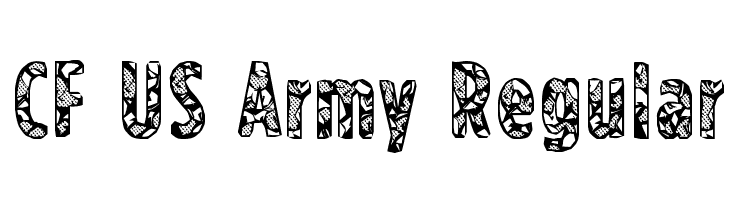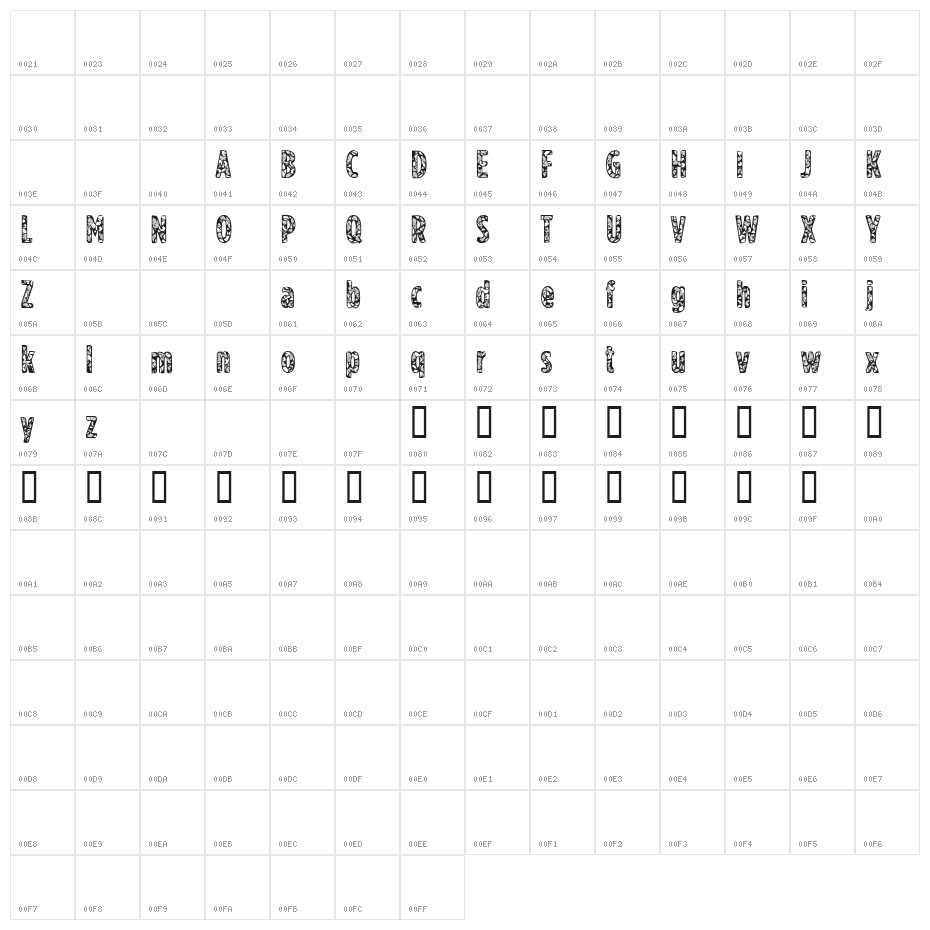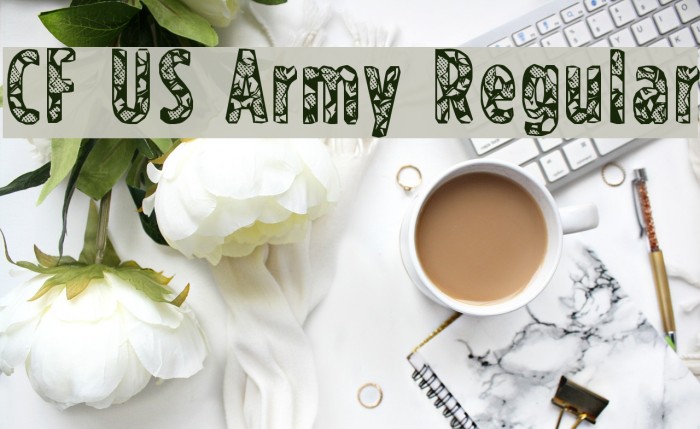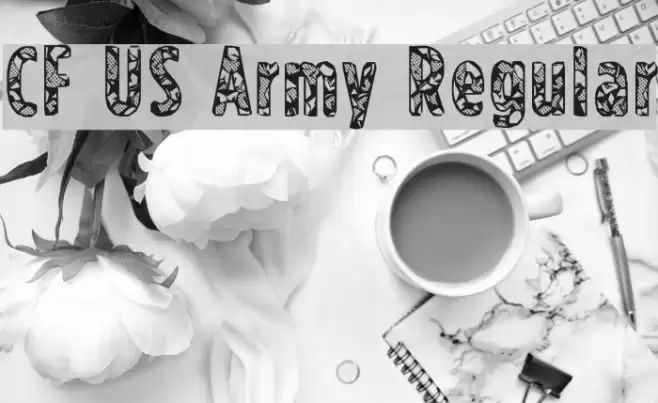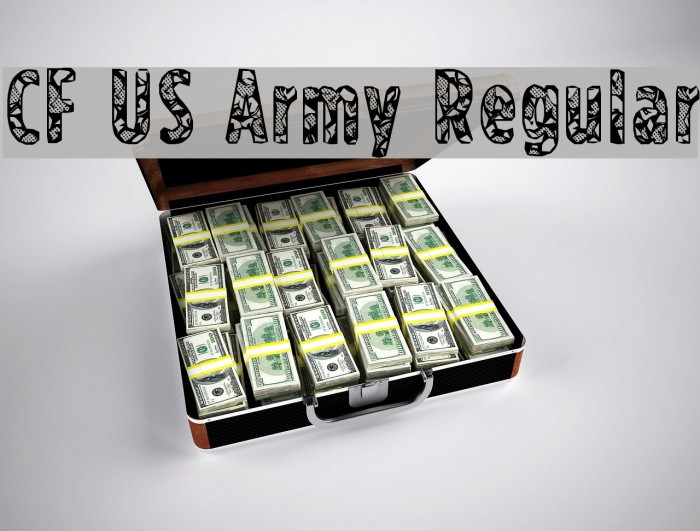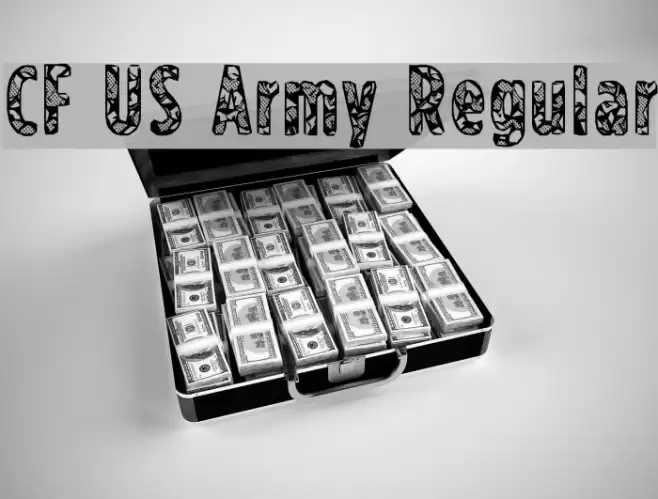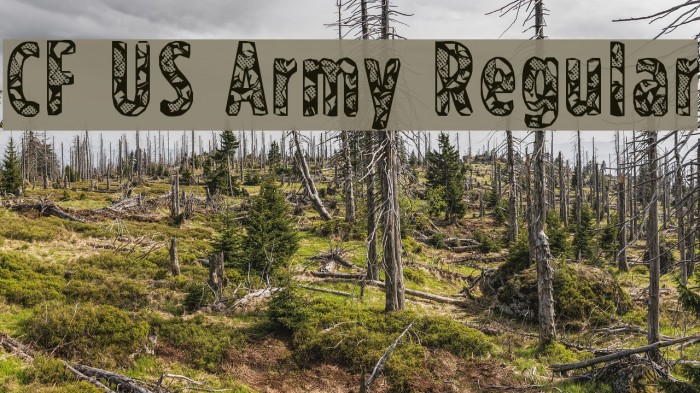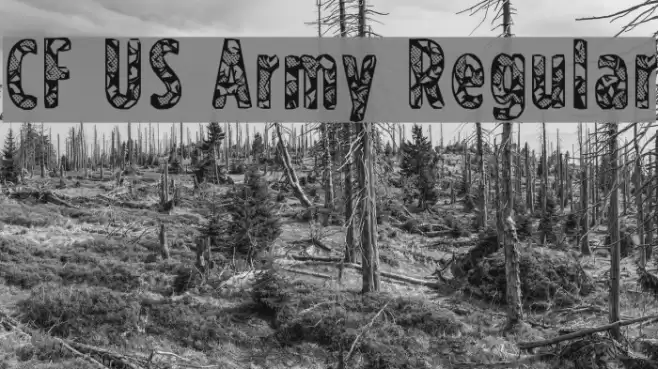
CF US Army Regular Font
CF US Army Regular Description
This font features a bold and decorative style with a unique camouflage pattern filling each character. The uppercase and lowercase letters maintain a consistent design, showcasing a rugged and military-inspired aesthetic. The characters are well-defined with a strong presence, making them ideal for attention-grabbing designs. The pattern within the letters adds a textured look, enhancing the overall visual impact. This font is perfect for projects that require a distinctive and bold statement, such as military-themed graphics or adventurous branding.
| Proposed Projects | Ideal for military-themed posters, adventure branding, outdoor gear packaging, and bold graphic designs. |